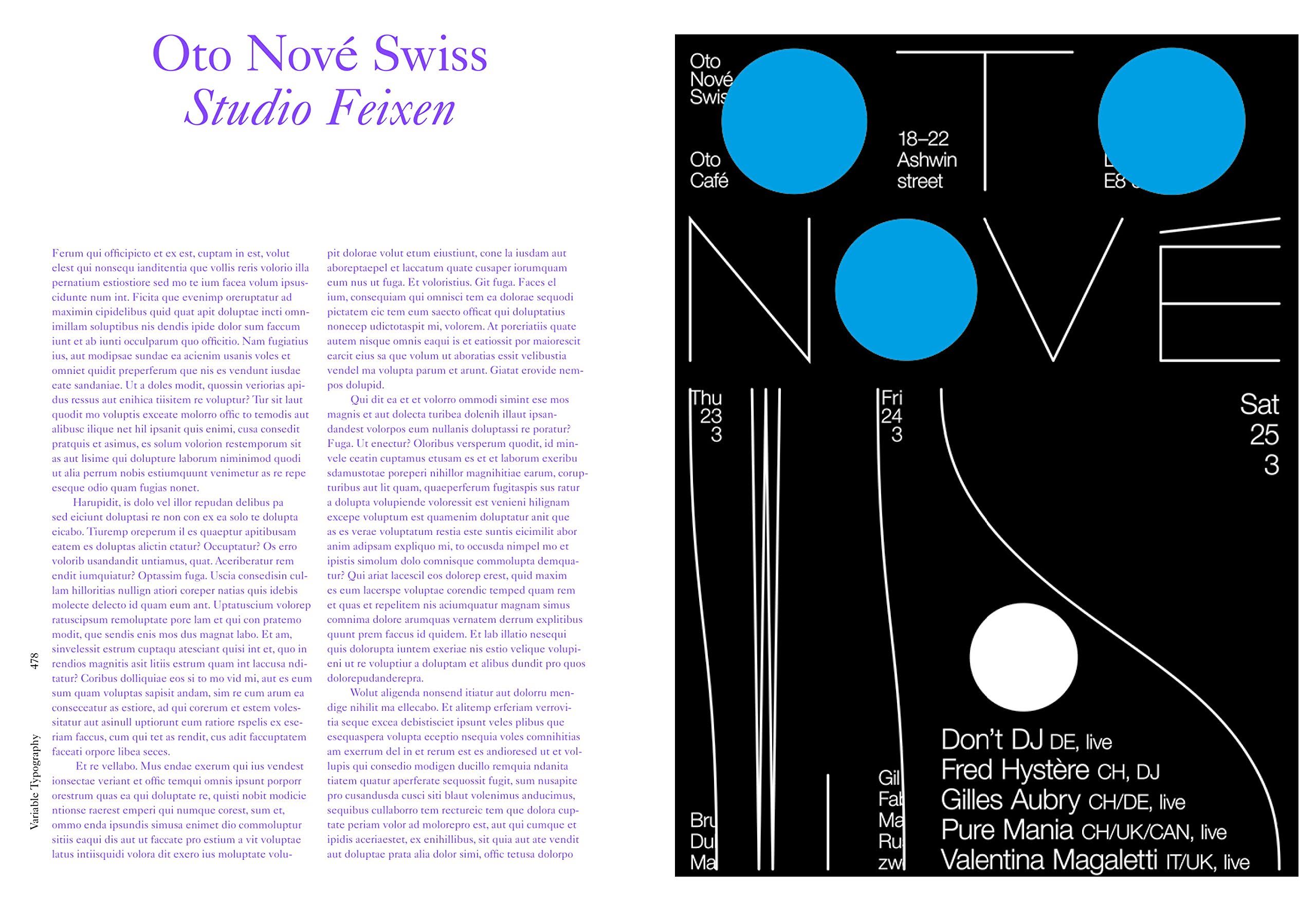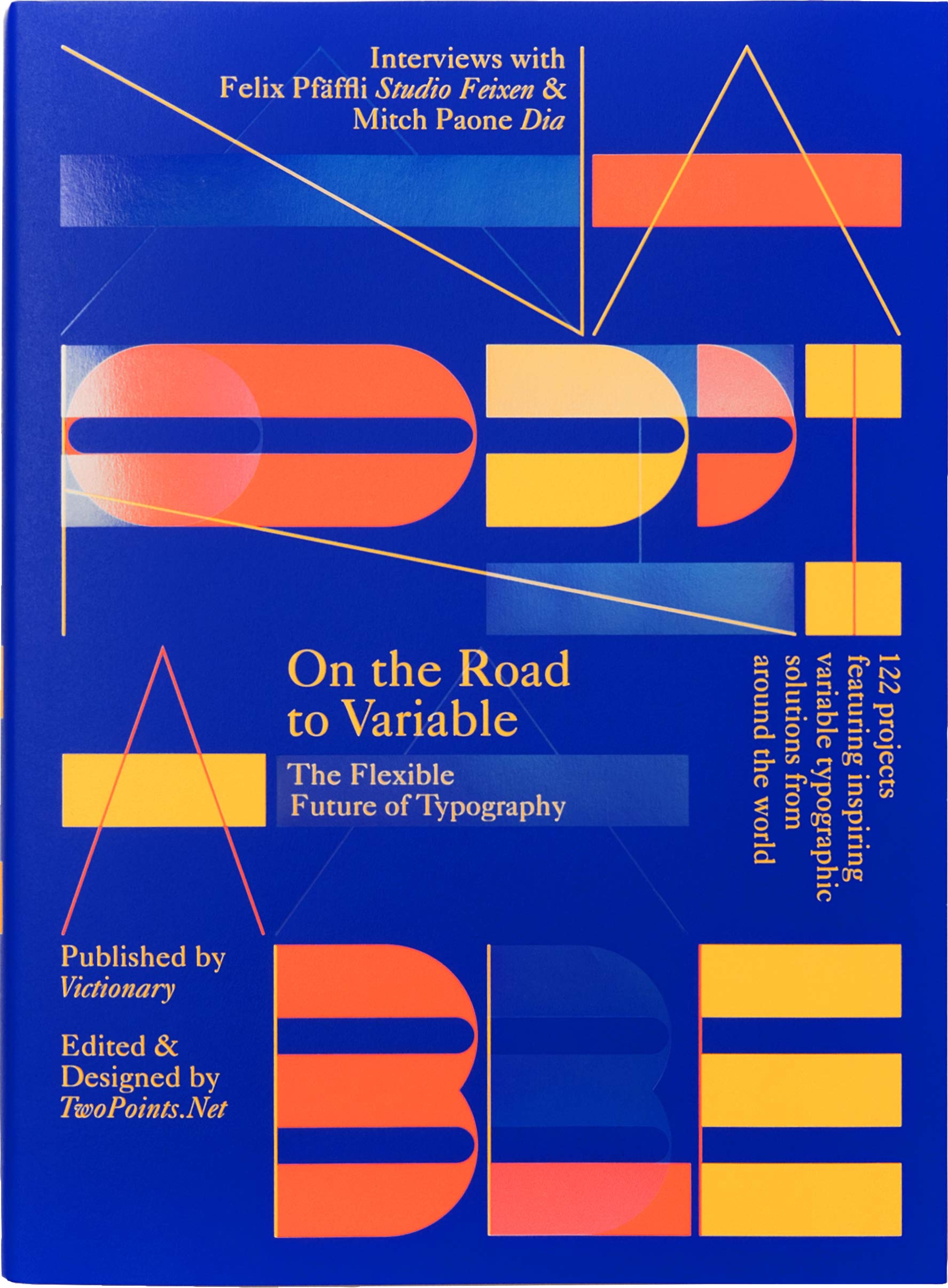
On the Road to Variable: The Flexible Future of Typography
On the 16th of September 2016, Adobe, Google, Apple, and Microsoft announced a new update to the OpenType specification that will allow for fonts to be variable. Through this update, designers will have the freedom and flexibility to use a wide variety of styles, ranging in extremes to include everything in between.
Although the technology has yet to be fully implemented, variable typography is already becoming an unstoppable force in contemporary graphic design. On the Road to Variable explores an eclectic and exciting collection of work that experiments with the modification of existing typefaces as well as the creation of new ones for a fascinating glimpse into the future of type.